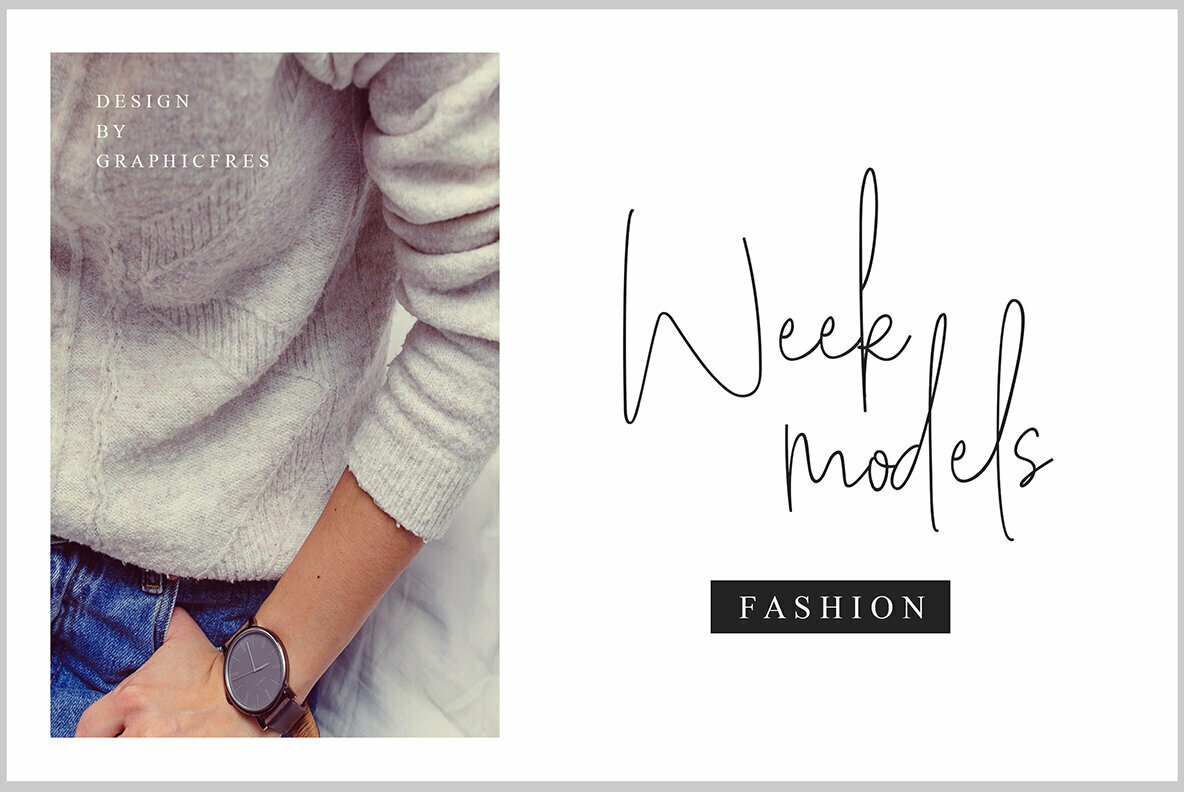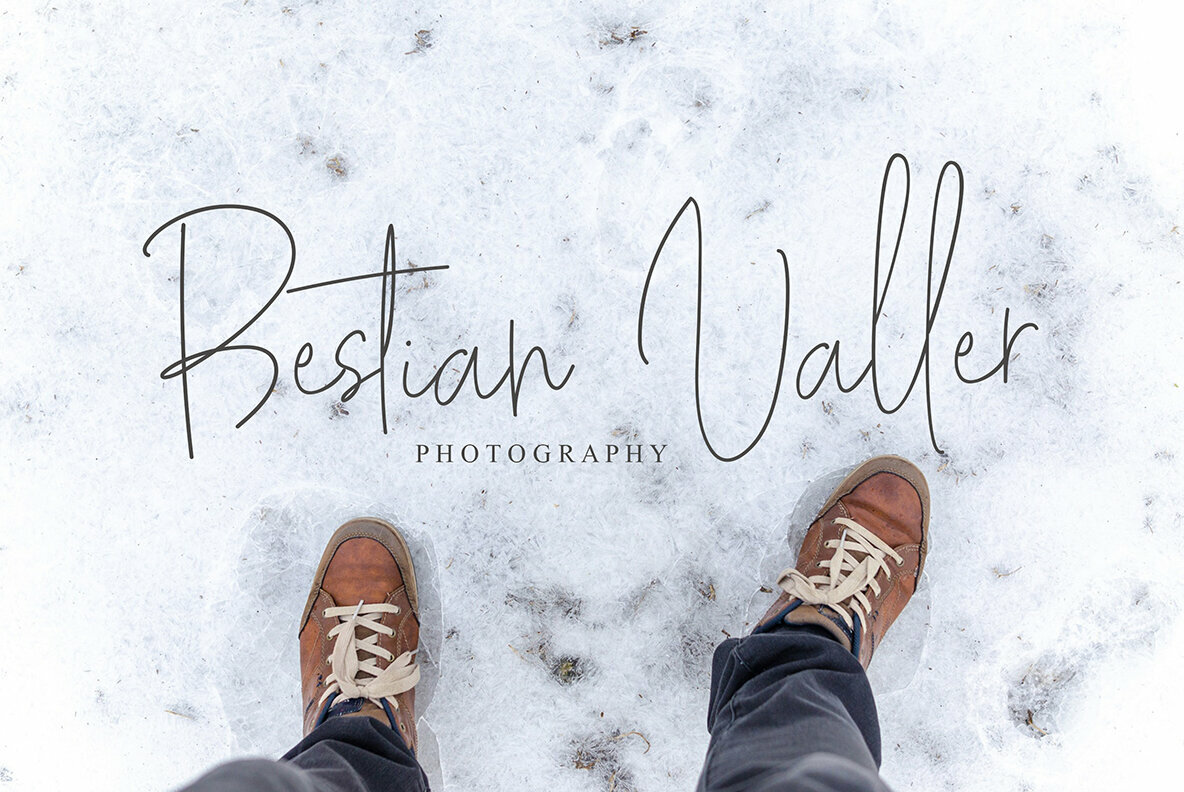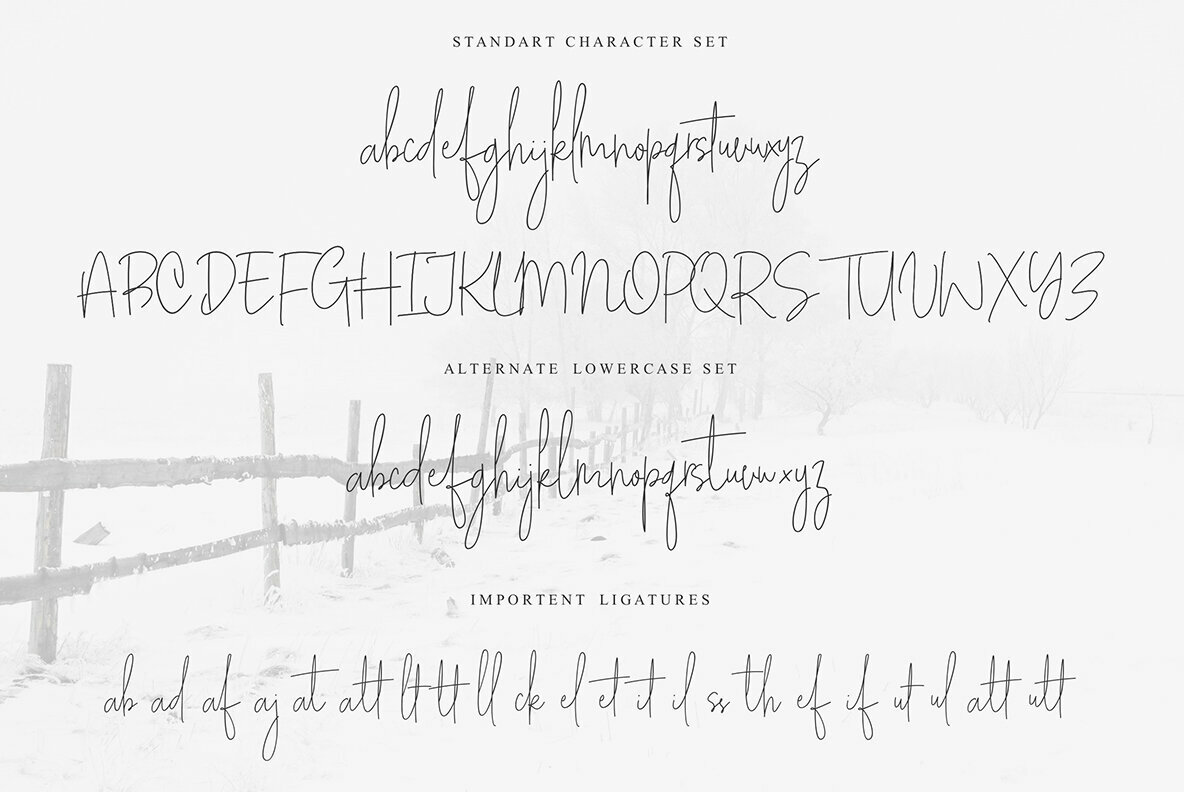
White Apparel Font
White Apparel by Graphicfresh captures the essence of refined handwriting in a flexible script font. Ideally suited for logos, name cards, magazine layouts, invitations, and headers, its unique character can elevate any design project. Whether in print or large-scale artwork, its delicate balance of form and function brings sophistication to the forefront.White Apparel: Elegant Script Font for Versatile Design